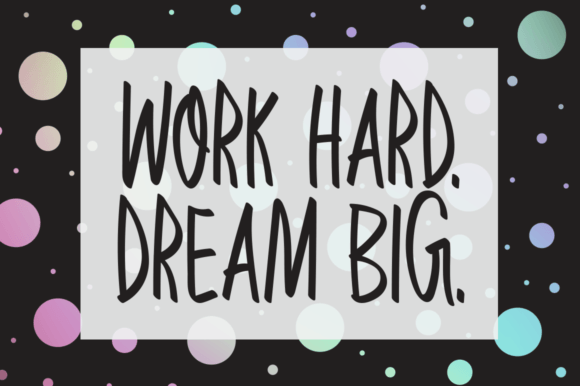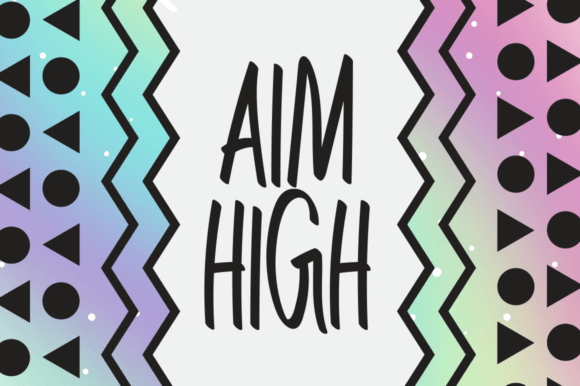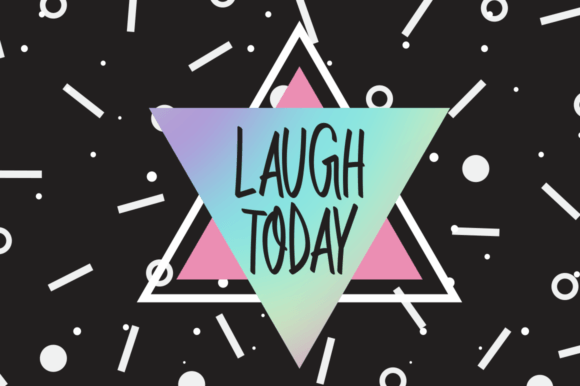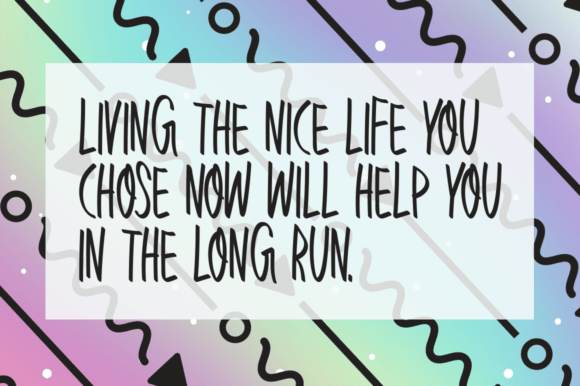
Introduction to New Goal Font
Remember the excitement of brainstorming a new creative project? The thrill of exploring different design elements to bring your vision to life? For designers, this moment is a constant source of inspiration and challenge. One crucial element that can elevate your project is the right font. And, today, we’re excited to introduce you to the perfect companion for your creative endeavors – the New Goal Font.
With its playful, handwritten style, the New Goal Font is an ideal choice for designers seeking to add a personal touch to their projects. Whether you’re working on a free download, a high-quality print, or a digital design, this versatile font can seamlessly adapt to your needs. Its transparent background and flexible design make it a valuable resource for any creative project.
As a design resource, the New Goal Font offers endless possibilities for expression and experimentation. Its quirky charm can add a unique twist to your work, making it stand out in a crowded design landscape. In this article, we’ll delve deeper into the world of the New Goal Font, exploring its features, applications, and how you can incorporate it into your next creative project.
Key Features of New Goal Font
- Designed with a modern and clean aesthetic, perfect for various design needs
- Suitable for use in logos, headings, and body text in various design projects
Honest Review: New Goal Font
I recently stumbled upon the New Goal Font, and I must say, I was quite impressed. As a designer, I’m always on the lookout for high-quality design resources to elevate my creative projects.
One of the standout features of the New Goal Font is its sleek and modern aesthetic, making it perfect for a variety of design projects. The font is also available for a free download, which is a definite bonus.
Here are some of the things that work well about the New Goal Font:
- ✨ High-quality design with a modern aesthetic
- ✨ Perfect for use with transparent background
- ⚠️ Limited character set, which may be a concern for more extensive design projects
- ⚠️ May not be suitable for use in complex layouts or designs requiring multiple font styles
Overall, I was pleased with the New Goal Font, and I think it’s a great addition to any designer’s toolkit. It’s perfect for smaller design projects or as a complement to other fonts in your design arsenal.
How to Use New Goal Font
Tips for Getting the Most Out of New Goal Font
To get the most out of the New Goal Font, use it with a transparent background to create a clean and modern design. You can also use the font in combination with other design elements to create a unique and eye-catching design.
The New Goal Font is perfect for a variety of creative projects, including presentations, documents, and social media graphics. You can use the font to create professional-looking designs that are sure to impress your audience.
Alternatives to New Goal Font
Open Sans is a highly legible and versatile sans-serif font, ideal for use in a variety of creative projects, including digital design, print materials, and even presentations. It’s available for free download and offers a high-quality, transparent background. When to use: body text, headings, and titles. Comparison to New Goal Font: While New Goal Font is more modern and sleek, Open Sans provides a cleaner and more professional look, making it suitable for a wider range of design applications.
Lato is a beautiful and elegant sans-serif font that’s perfect for creative projects requiring a touch of sophistication. It’s available for free download and offers a high-quality, transparent background. When to use: headings, titles, and emphasis text. Comparison to New Goal Font: Lato has a more refined and classic look compared to New Goal Font, making it suitable for high-end design projects and luxury brands.
Whether you’re working on a free download or a paid project, New Goal Font is an essential tool to have in your arsenal. Its versatility and ease of use make it an ideal choice for designers of all levels. So why wait? Download New Goal Font today and take your creative projects to the next level. With its high-quality design and transparent background, you’ll be able to create stunning visual elements that will elevate your work and leave a lasting impression on your audience.